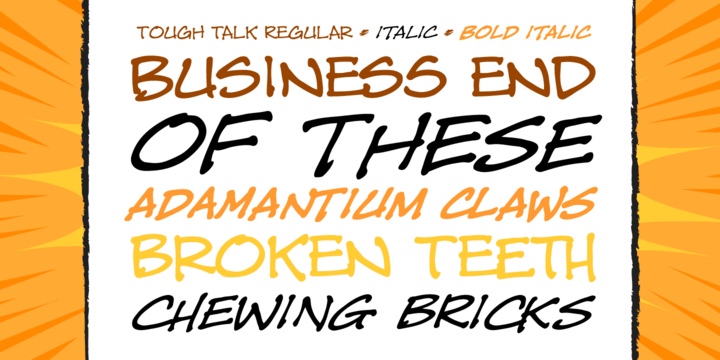
Tough Talk Font
Tough Talk Font is perfect for various design applications including action movie titles, extreme sports branding, military-themed designs, tough guy merchandise, hardcore fitness gym signage, motorcycle club graphics, combat sports promotions, tactical gear packaging, street-tough fashion labels, and no-nonsense business communications. This commanding typeface excels in projects requiring uncompromising strength and aggressive confidence that communicates raw power, determination, and the kind of unwavering toughness that gets results when the stakes are high.
What makes Tough Talk Font so exciting is its relentless embodiment of hardcore attitude and uncompromising strength through letterforms that refuse to back down and demand respect through sheer visual force. The font features aggressive angular construction that suggests steel and concrete, bold proportions that communicate unshakeable confidence, and intimidating character details that reflect the kind of street-smart toughness that survives in harsh environments. Its distinctive hardcore character and intimidating presence make it perfect for brands seeking to communicate dominance, reliability under pressure, and the kind of no-nonsense attitude that cuts through weakness and delivers results.
Tough Talk Font family includes multiple aggressive weights and hardcore variations that enhance its versatility for different tough applications. Each style maintains the font's signature intimidating character while providing options for various hardcore design approaches. The family also features aggressive decorative elements, tough symbols, and street-smart ornaments that can be combined with the letterforms to create cohesive hardcore communication systems.
Whether you're developing tough brands, extreme sports campaigns, or no-nonsense communications, Tough Talk Font provides commanding typography that establishes immediate respect and communicates the kind of hardcore credibility that doesn't need to prove itself twice. This typeface transforms ordinary messages into intimidating statements that command attention and leave no doubt about serious intentions. The font's aggressive appeal makes it particularly effective for action-oriented brands, extreme sports companies, and businesses targeting audiences who respect strength, determination, and uncompromising performance.
Tough Talk Font stands out by delivering authentic hardcore attitude that feels genuinely tough rather than artificially aggressive or superficially intimidating. Its precisely engineered aggression and street-smart proportions ensure that designs communicate real strength and proven capability under extreme conditions. From extreme sports branding to tough guy merchandise, this font provides designers with tools to create communications that celebrate uncompromising strength and demonstrate mastery of hardcore design through typography that talks tough and backs it up with unwavering visual authority.